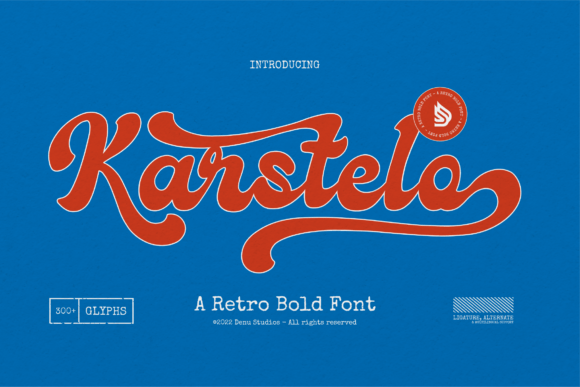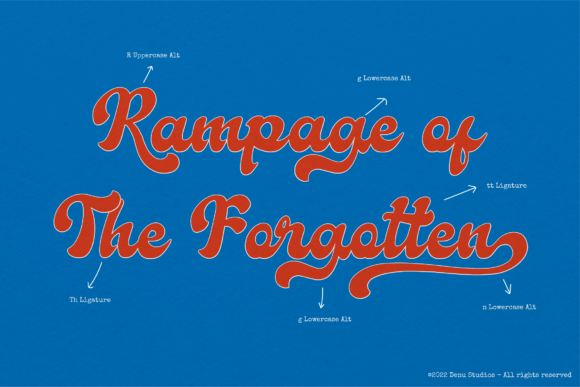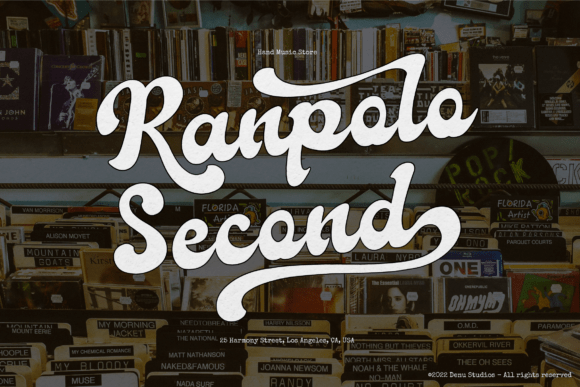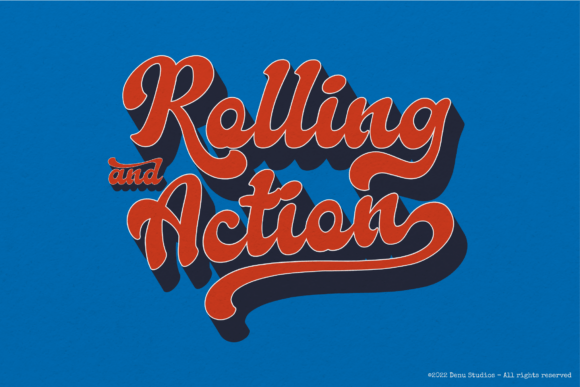
Karstelo Font: Bold Retro Typography for Eye-Catching Logo Design
About the Karstelo Font
Presenting Karstelo Font, a unique and stylish typeface that will make your work stand out. Karstelo is a retro bold font, suitable for any projects such as: logos, branding projects, homeware designs, product packaging, mugs, quotes, posters, shopping bags, t-shirts, book covers, name card, invitation cards, greeting cards, label, photography, watermark, special events, and all your other lovely projects that need a Retro Bold Font taste.
Karstelo’s retro boldness makes it ideal for headlines, short impactful statements, and branding applications where a strong vintage feel is desired. It excels in logo design, posters, and packaging for products aiming for a retro or nostalgic aesthetic. However, its weight and condensed nature make it less suitable for extended body text or UI elements requiring high readability.
Consider pairing Karstelo with a clean sans-serif like Montserrat for a balanced contrast, or a delicate script font such as Great Vibes for a touch of vintage elegance. For a more modern feel, a geometric sans-serif like Futura would create a striking juxtaposition.
Karstelo projects a confident, assertive personality. It’s best suited to brands and projects conveying boldness, heritage, or a playful retro vibe. Avoid using it where a sophisticated or minimalist approach is paramount.
Karstelo Font Usage Examples
Karstelo Font Example